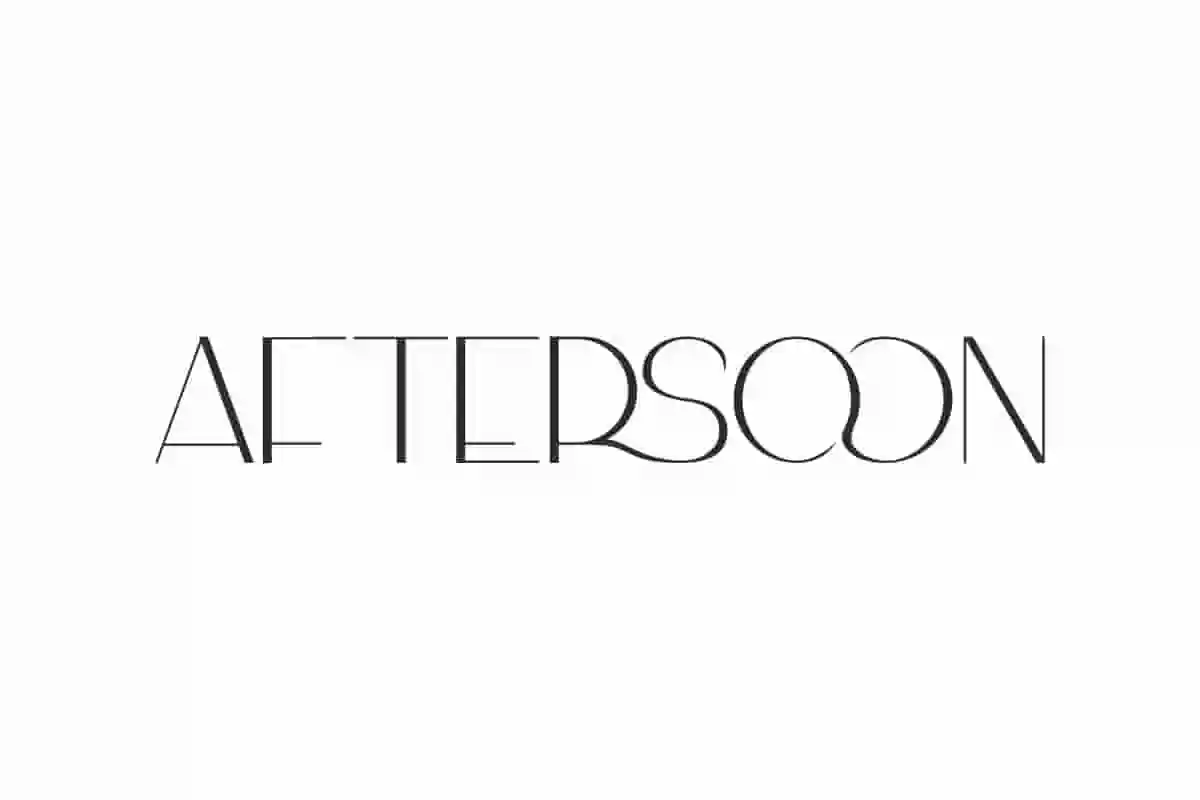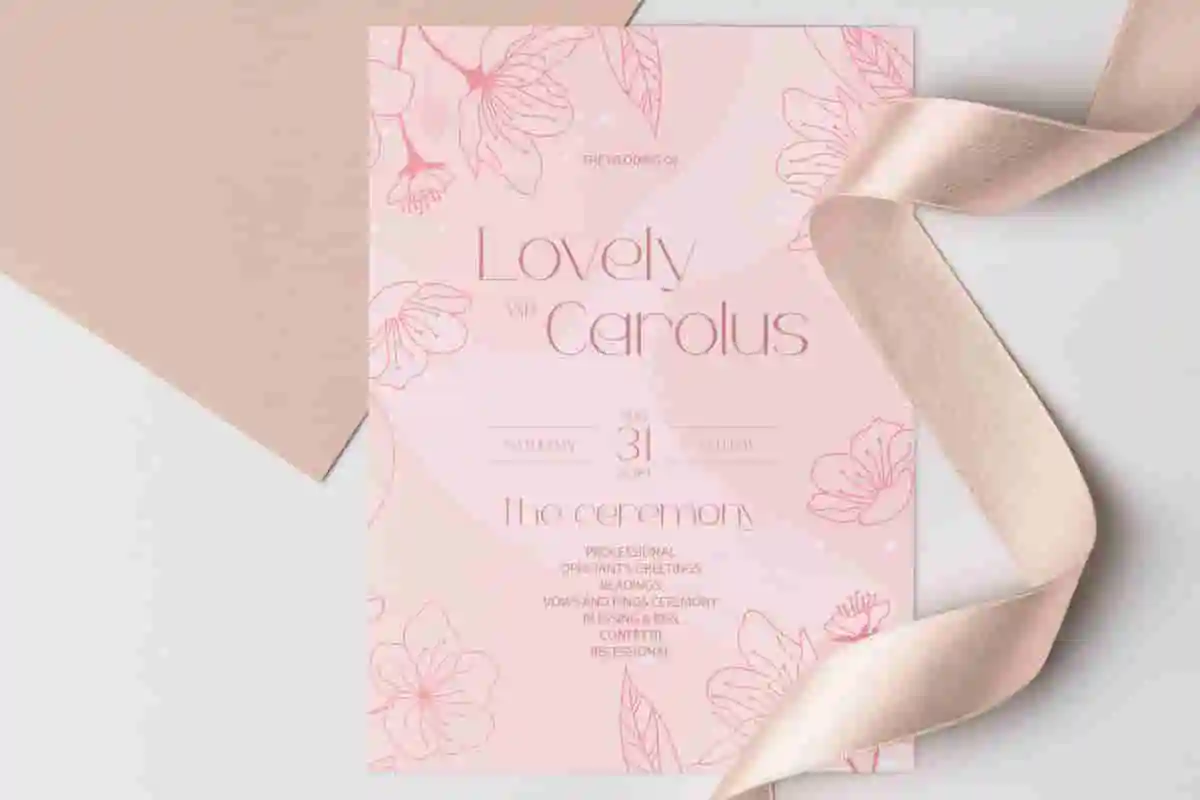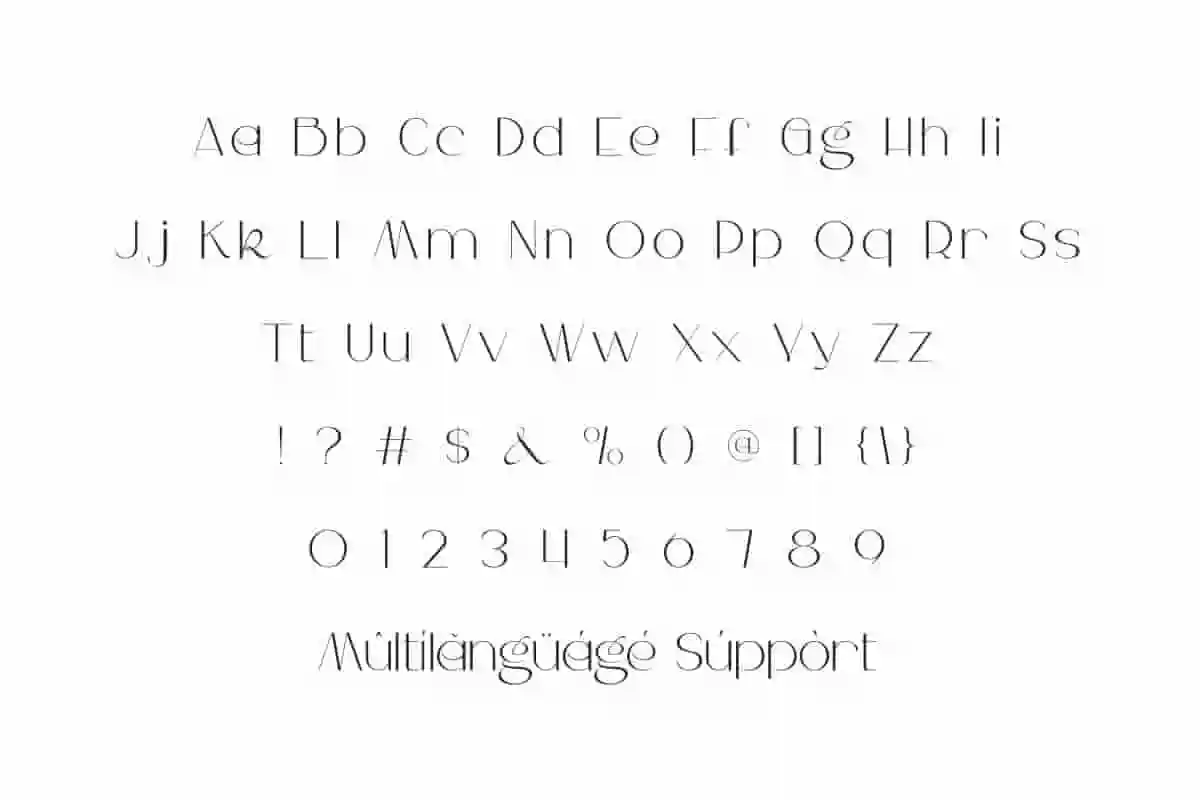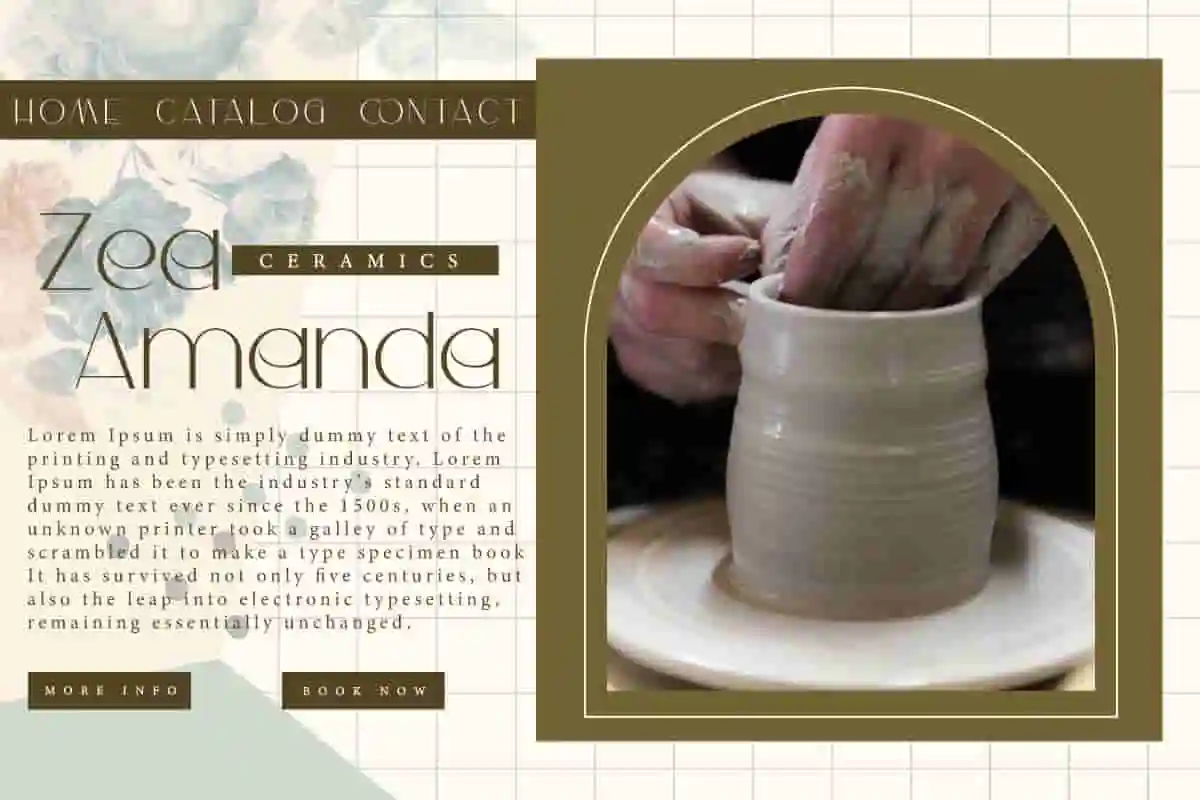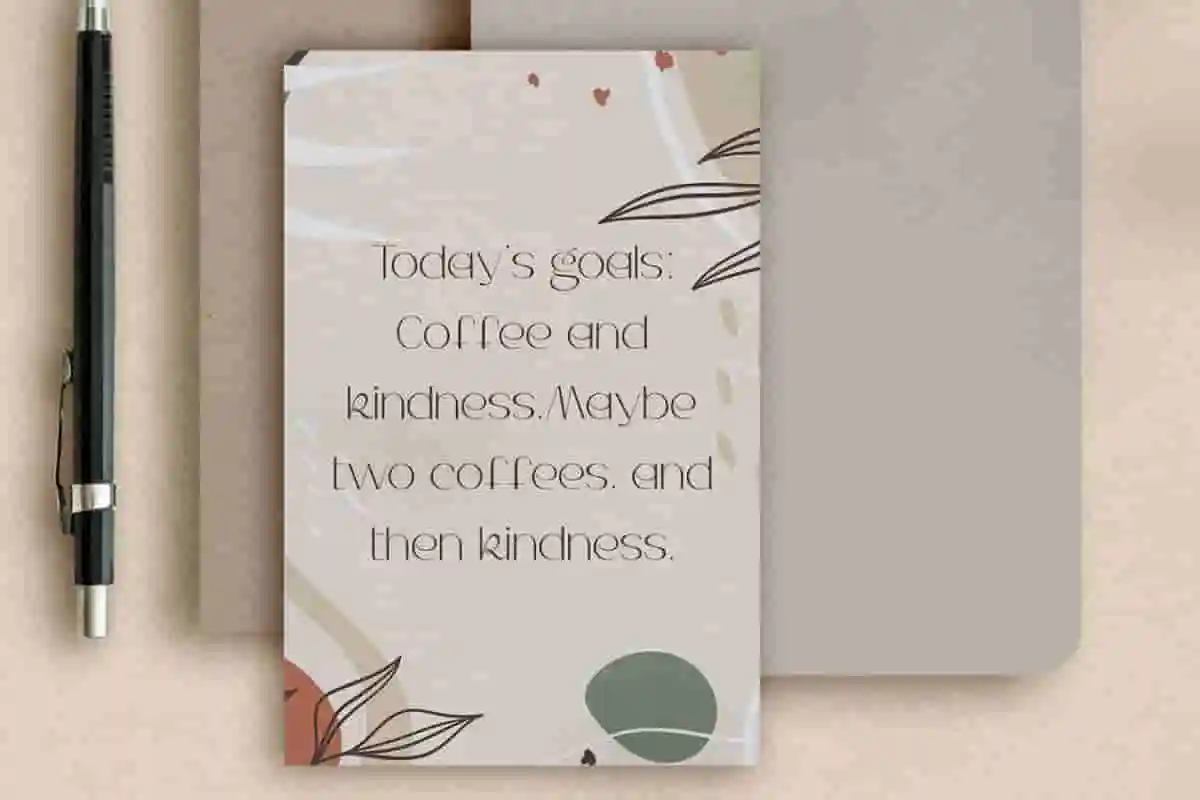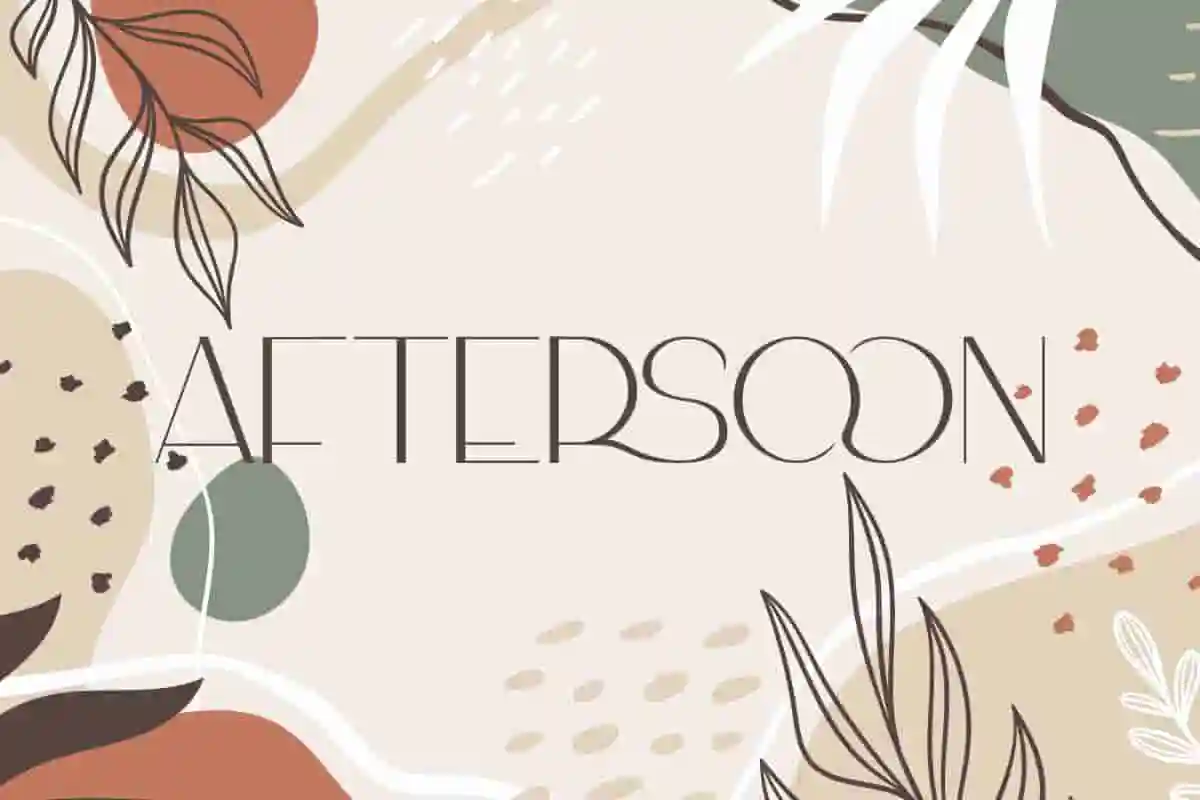
Aftersoon Font is a beautiful sleek sans serif display font with stunning modern shapes. edges and ligature. The font bring soft charm that feels timeless! It can enhance your creation son many projects
Aftersoon Font is a sleek sans serif font with a stunning modern shapes. edges and ligature. Its thin shape makes it look light which will enhance your business, such as architect, café, cosmetic, craftsman, earthenware, event organizer, fashion designer, furniture, interior design, jewelry, photography, printing, publishing, real estate, restaurant, skincare, social media content, spa salon, wedding, writer, etc.
Aftersoon Font includes full set of Uppercase and Lowercase Basic Characters, Number, Punctuation, Symbol, and Ligature. It’ll help your design feel stunning in a layer of timeless sophistication, such as apps, blogs, body text, brand logo, brochure, business card, cover, flyer, headline, invitation, label, product packaging, poster, quote, screen print, stationery, sticker, title, watermark, website, and many more.